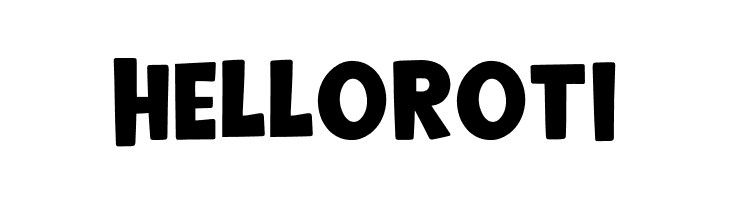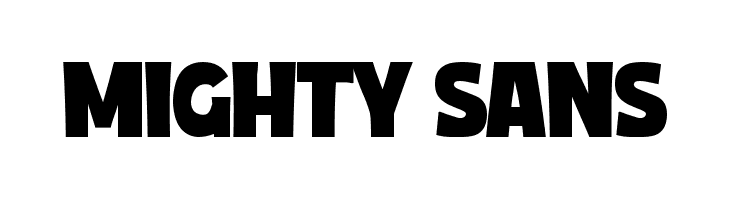
( Fonts by Khurasan )
A bold, playful font with thick, rounded characters and a whimsical style.
( Fonts by Fontherapy | Kalifont Studio )
A playful, bold handwritten font with rounded edges and a whimsical style.
( Fonts by Phantom Studio )
A bold, playful font with thick, rounded strokes and a hand-drawn feel.
( Fonts by Mr.Soon Design )
A playful, rounded font with bold, bubbly characters ideal for informal use.
( Fonts by Khurasan )
A bold, rounded font with a playful and whimsical style.
( Fonts by PiPi Creative )
A bold, playful script font with a hand-drawn, friendly appearance.
( Fonts by MJType )
A bold, rounded font with a playful, hand-drawn style.
( Fonts by MJType )
A bold, playful font with a hand-drawn, whimsical style.
( Fonts by fsuarez913 )
A playful, bold font with rounded edges and a modern, friendly style.
( Fonts by Font Bundles )
A playful, bold font with rounded, thick strokes and a hand-drawn feel.